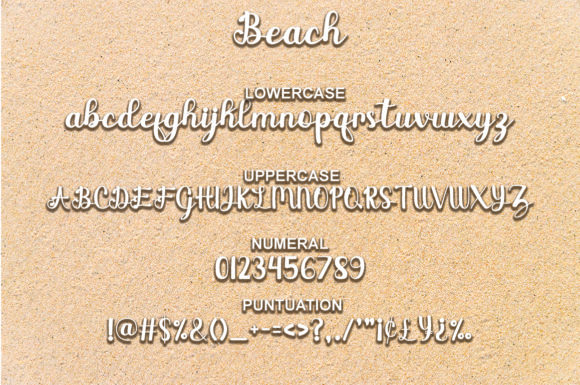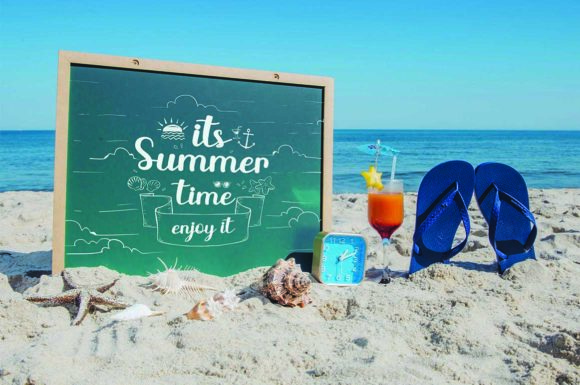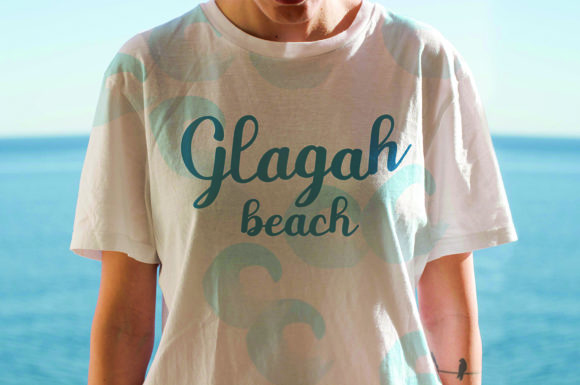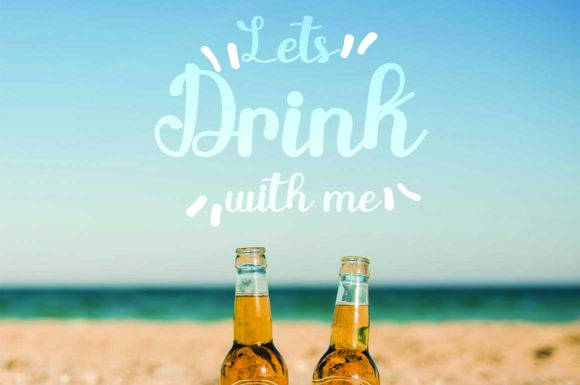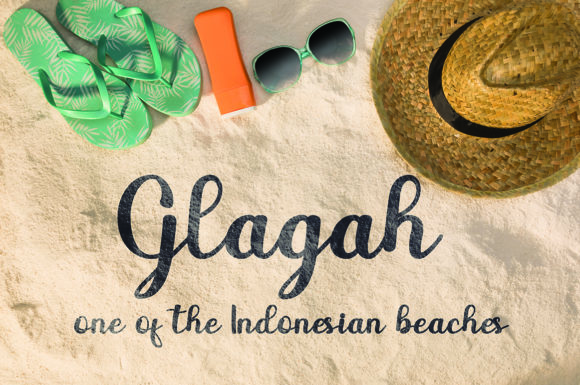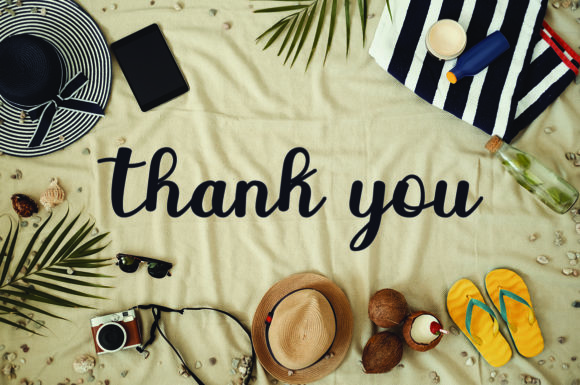
Introducing Beach Font: The Perfect Summer Companion for Your Design Projects
Are you tired of using the same old fonts for your design projects? Do you want to add a touch of summer vibes to your creations? Look no further than Beach Font, a beautiful, flowing handwritten font that’s perfect for designers and crafters alike. With its incredibly distinct and friendly style, Beach Font is sure to fall in love with your favorite projects.
What is Beach Font?
Beach Font is a carefully crafted, handwritten font that’s designed to evoke the feeling of a warm summer day. Its flowing lines and curves are reminiscent of the ocean waves and sandy shores that we all love. This font is perfect for adding a touch of whimsy and playfulness to your designs, making it ideal for projects that require a friendly and approachable tone.
Key Features of Beach Font
- Unique and Distinct Style: Beach Font boasts an incredibly distinct and friendly style that’s sure to make your designs stand out from the crowd.
- Summery Vibe: The font’s flowing lines and curves are designed to evoke the feeling of a warm summer day, making it perfect for seasonal designs.
- Handwritten: Beach Font is a handwritten font, adding a touch of personality and whimsy to your designs.
- Versatile: This font is perfect for a wide range of design projects, from branding and packaging to social media graphics and more.
Beach Font is a versatile font that’s perfect for designers and crafters alike. Whether you’re working on a branding project, creating social media graphics, or designing packaging, this font is sure to add a touch of summer vibes to your creations. Its friendly and approachable style makes it ideal for designs that require a personal touch.
Use Cases for Beach Font
- Branding and Packaging: Use Beach Font to add a touch of summer vibes to your branding and packaging designs.
- Social Media Graphics: Create eye-catching social media graphics with Beach Font, perfect for summer-themed posts and promotions.
- Invitations and Party Decor: Use Beach Font to create beautiful invitations and party decor for summer events and celebrations.
- Web Design: Add a touch of summer vibes to your website with Beach Font, perfect for seasonal promotions and designs.
Why Choose Beach Font?
- Unique Style: Beach Font boasts a unique and distinct style that’s sure to make your designs stand out.
- Easy to Read: The font is carefully crafted to be easy to read, making it perfect for designs that require a clear and concise message.
- High-Quality: Beach Font is a high-quality font that’s designed to deliver exceptional results.
In conclusion, Beach Font is a beautiful, flowing handwritten font that’s perfect for designers and crafters alike. With its incredibly distinct and friendly style, Beach Font is sure to add a touch of summer vibes to your favorite projects. Whether you’re working on a branding project, creating social media graphics, or designing packaging, Beach Font is the perfect choice. So why wait? Fall in love with Beach Font today and take your designs to the next level!